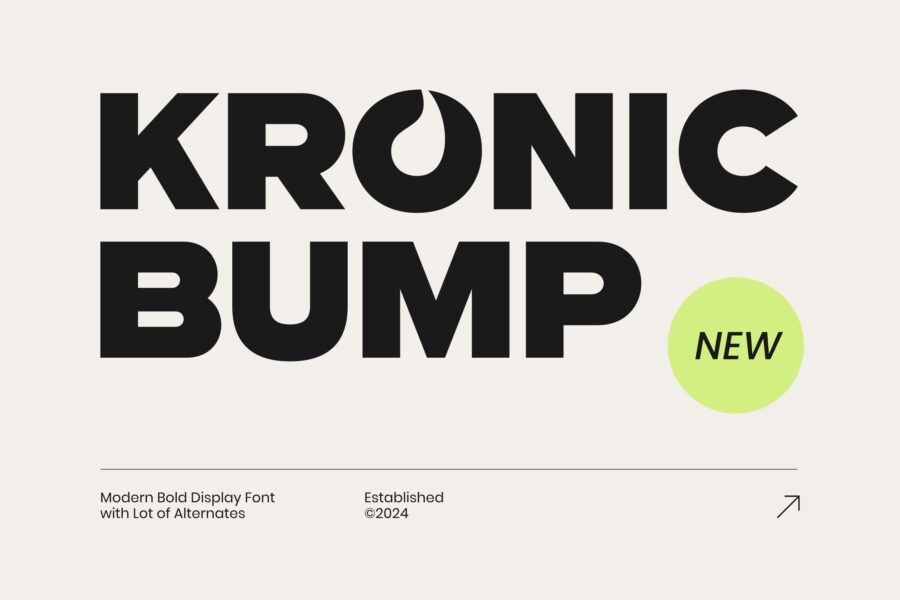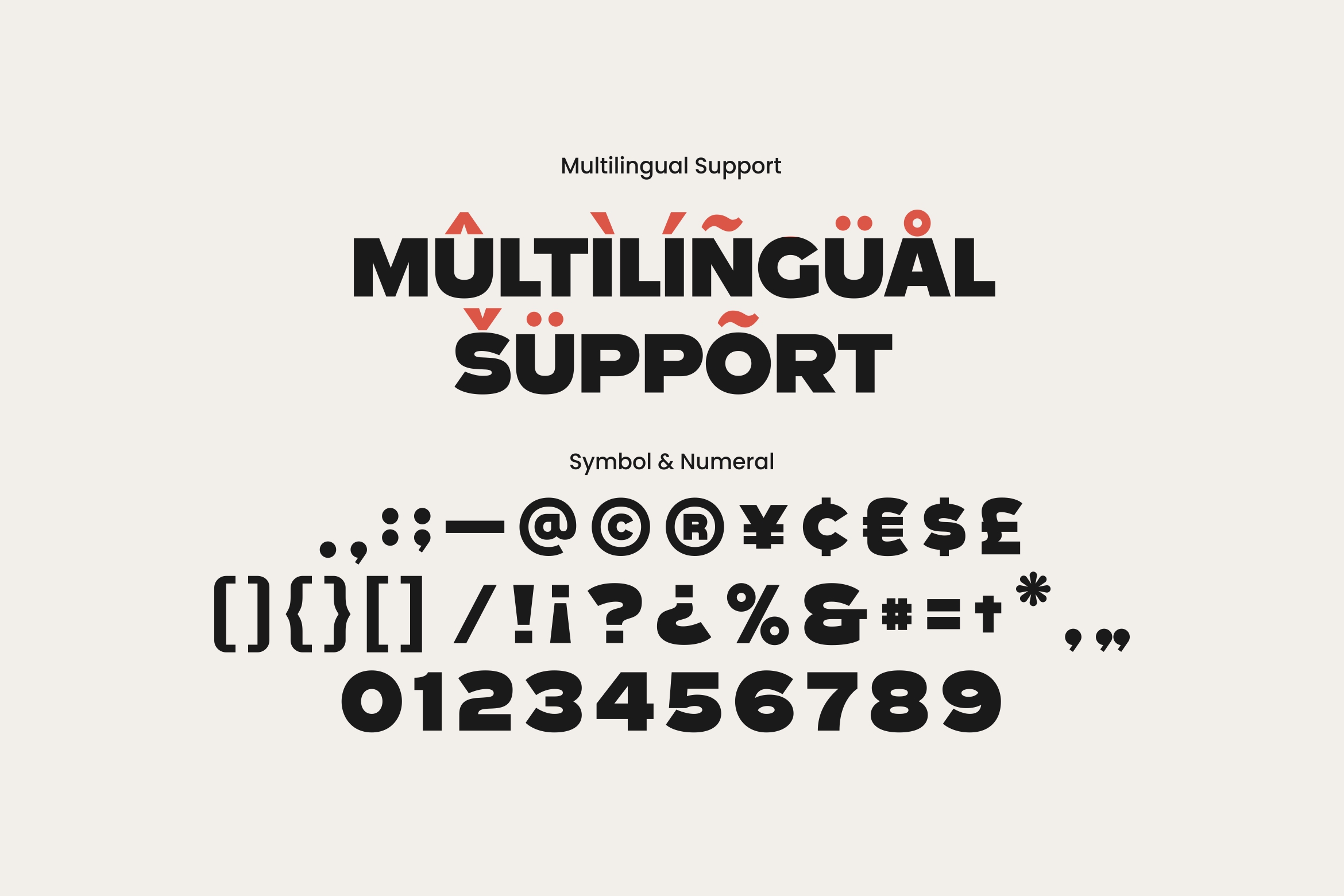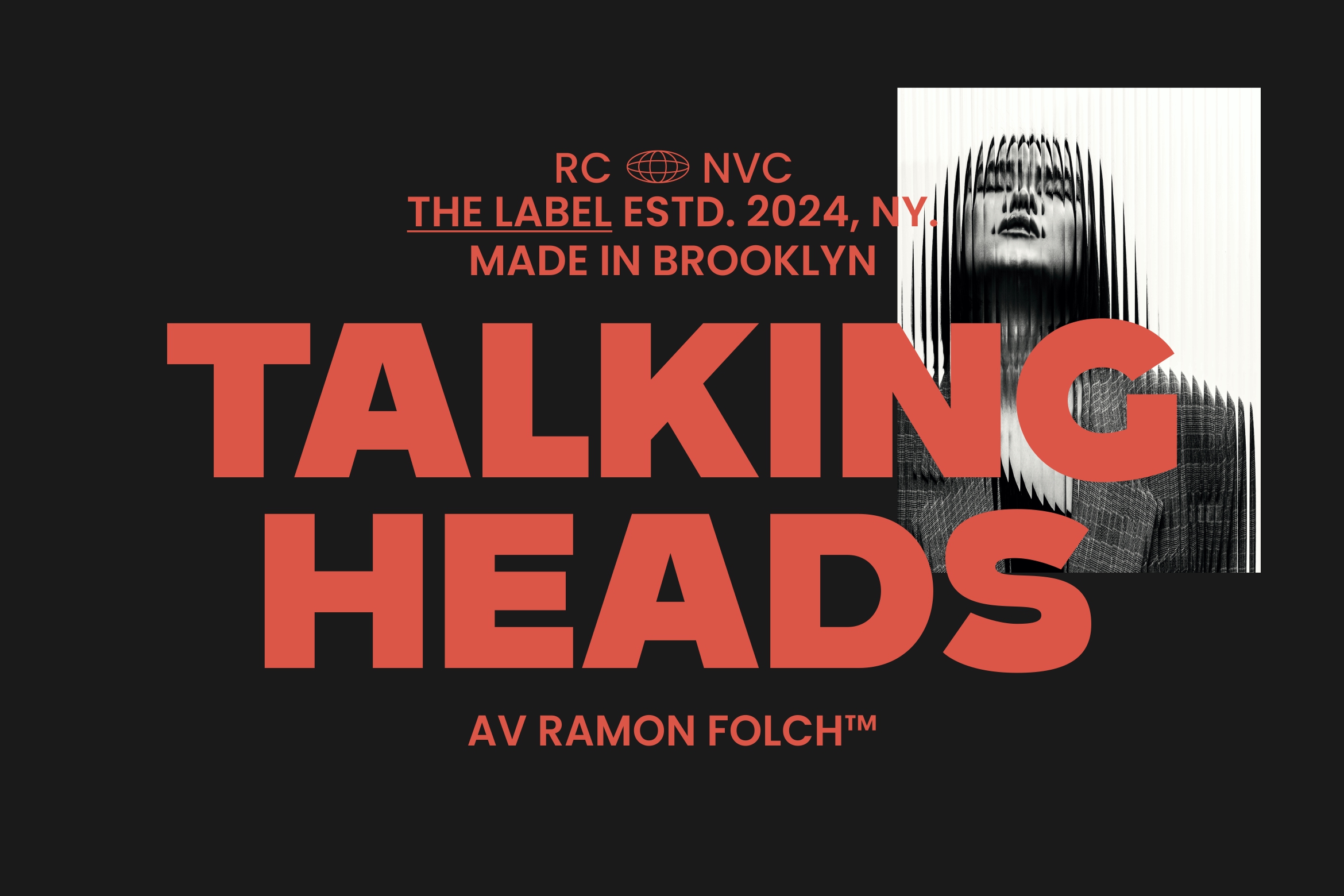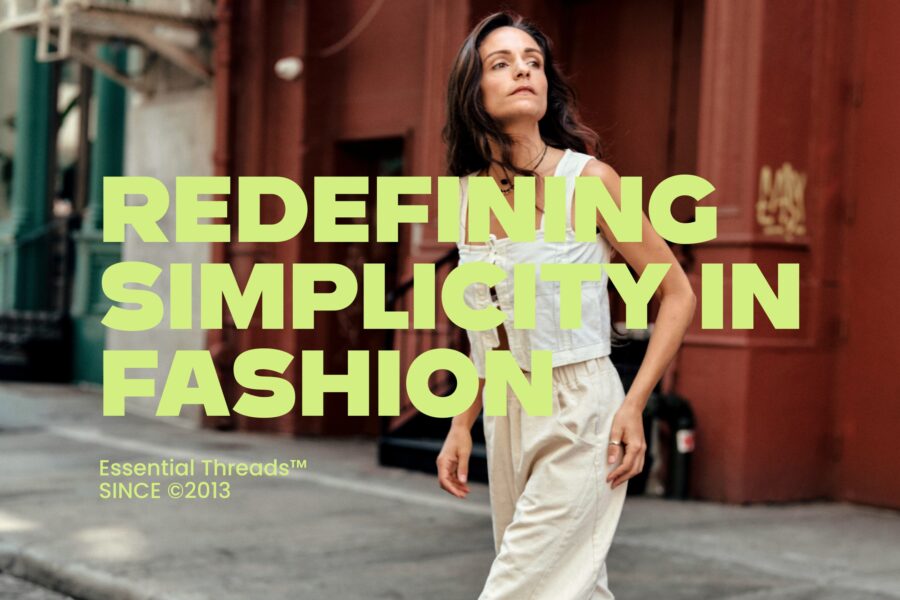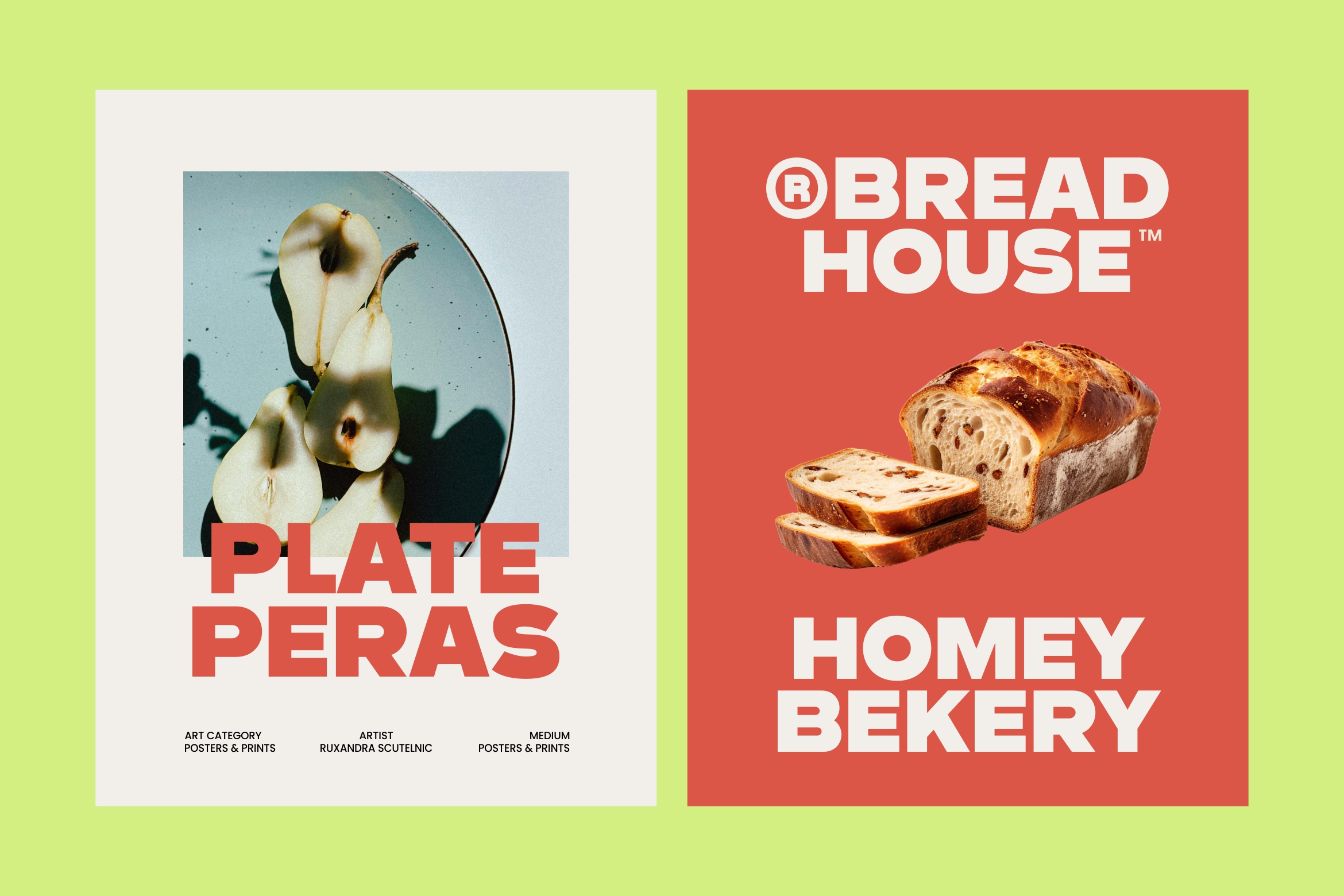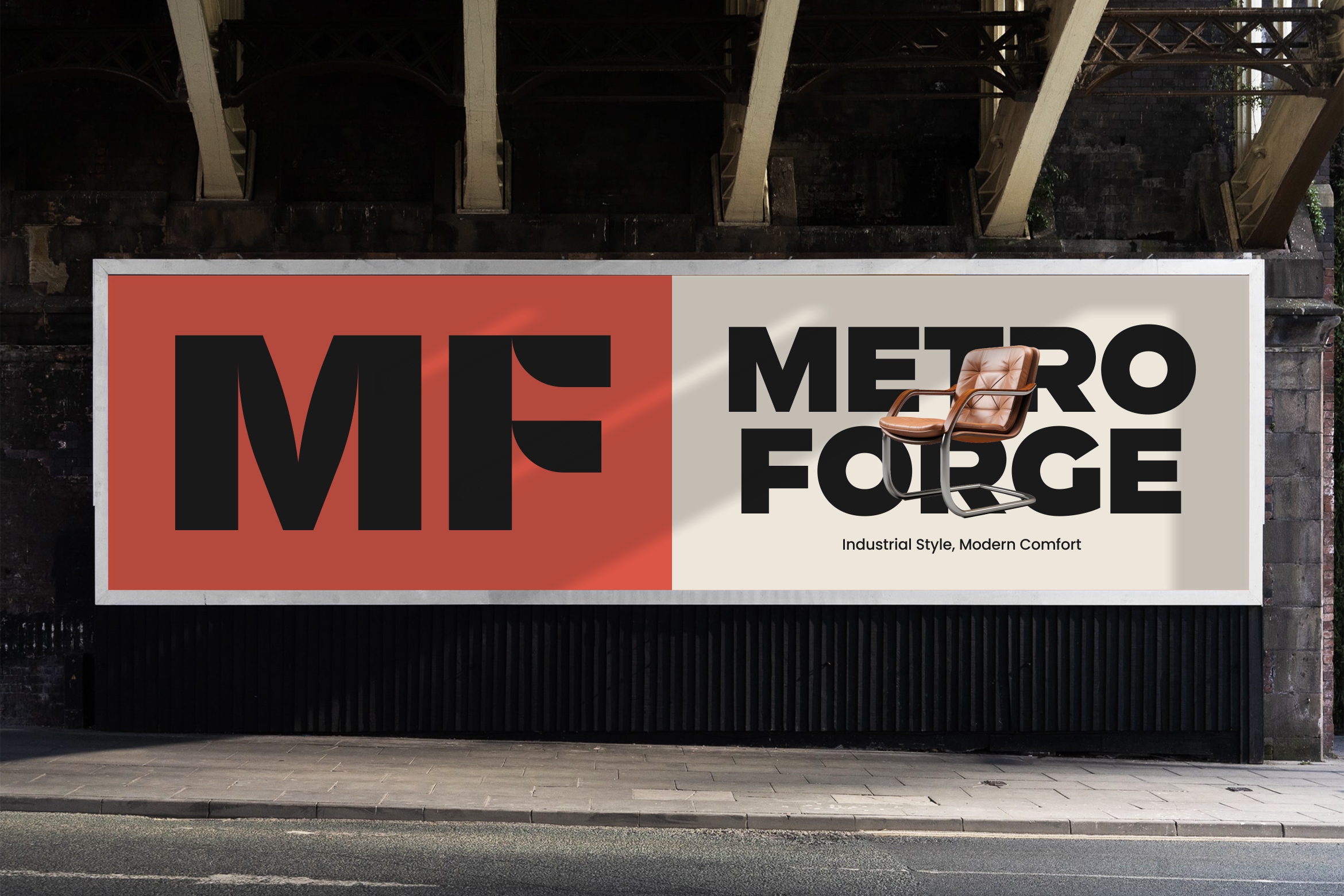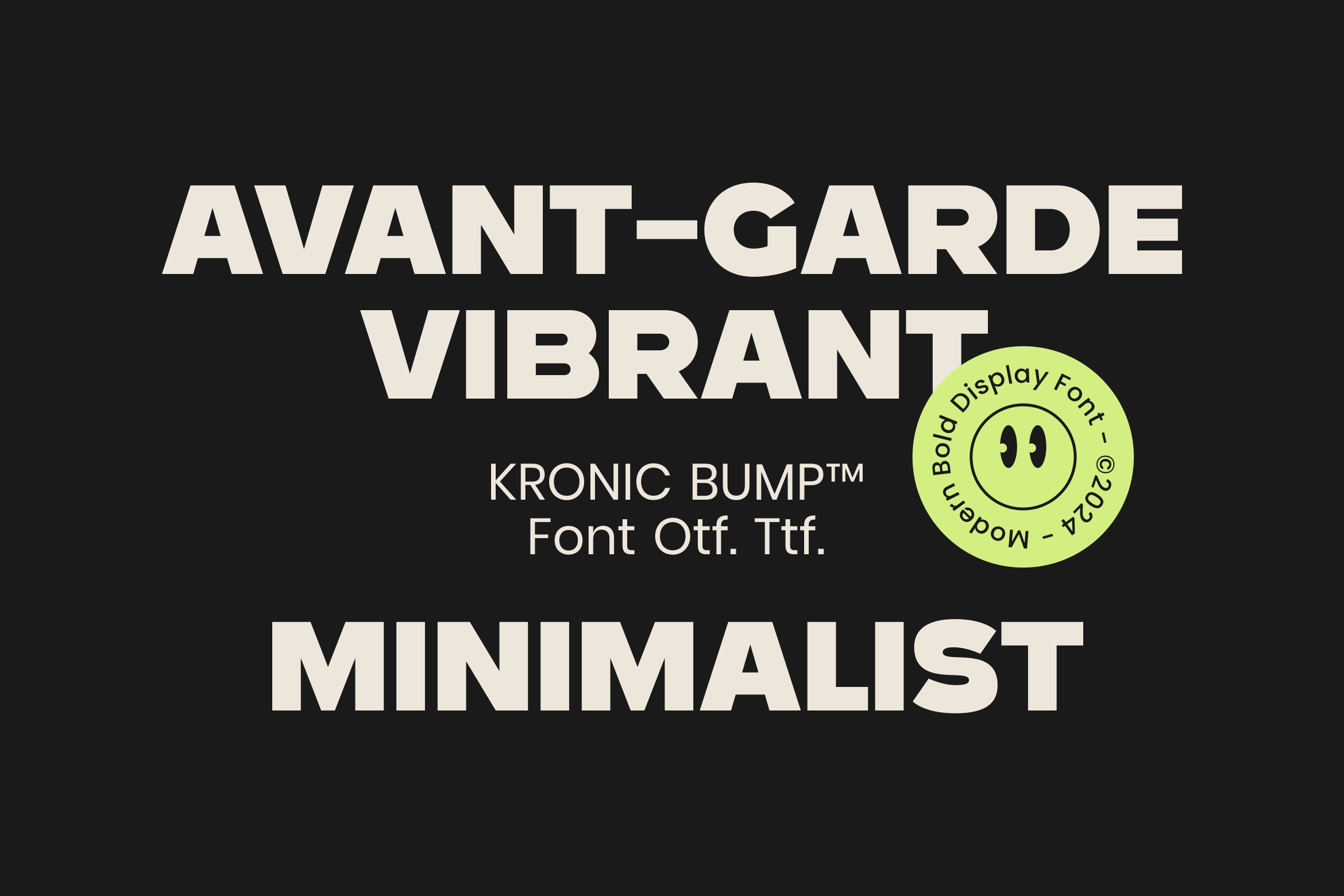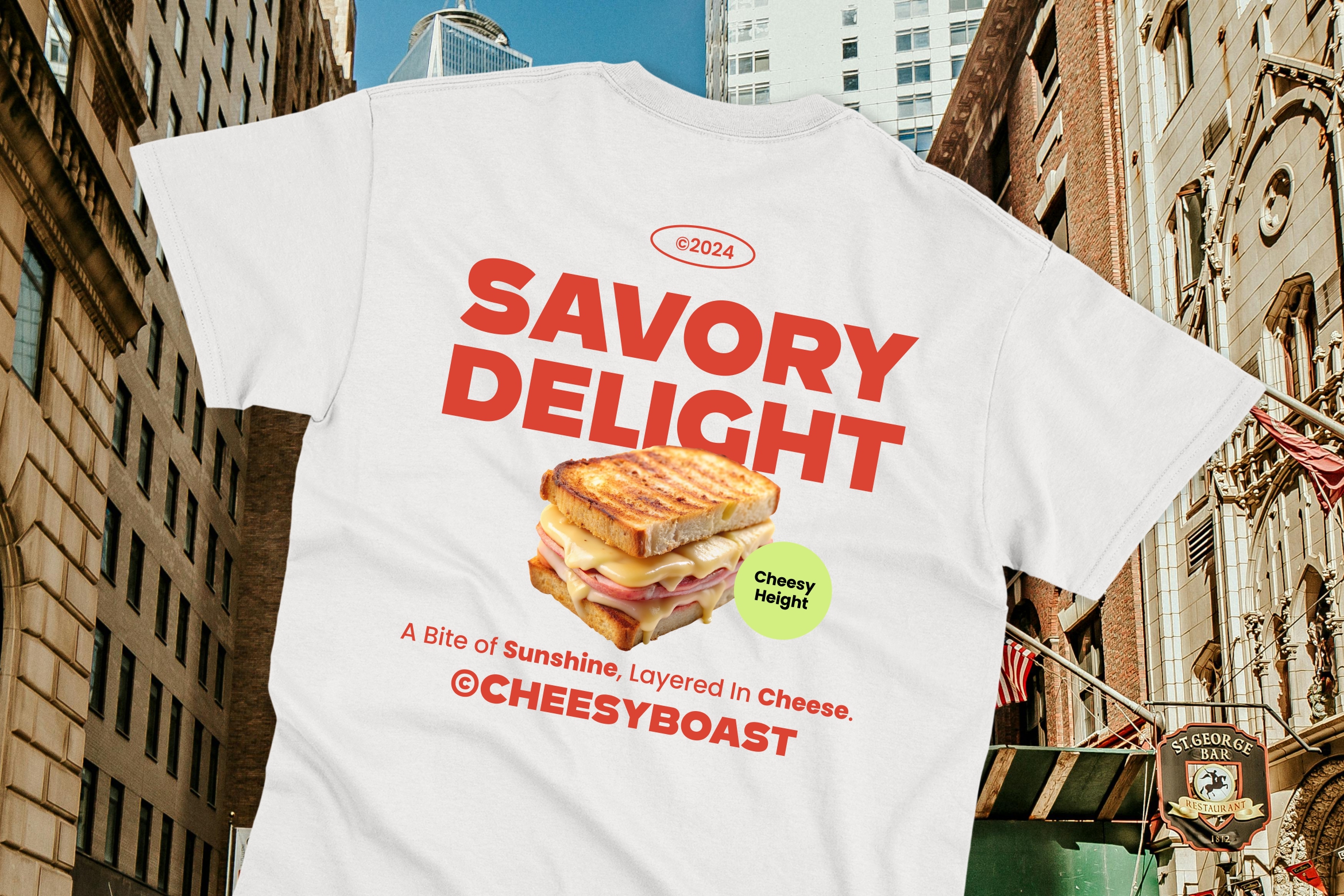
Kronic Bump
Glyphs for Kronic Bump
Kronic Bump™ is a bold, modern display font designed for maximum impact and versatility. With strong geometric shapes, smooth curves, and playful alternate glyphs, this typeface offers a contemporary yet approachable personality perfect for branding, packaging, poster design, or any creative project needing a punch of character. Its rounded counter forms and unique cutouts in alternate characters create visual rhythm and memorability.
This font includes uppercase regular and alternate sets, multilingual support, numbers, symbols, and punctuation. Whether you’re crafting editorial layouts, lifestyle branding, or promotional visuals, Kronic Bump™ makes a bold, expressive statement with style and confidence.